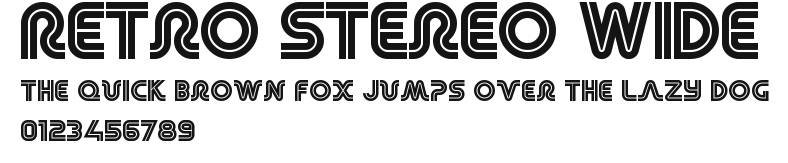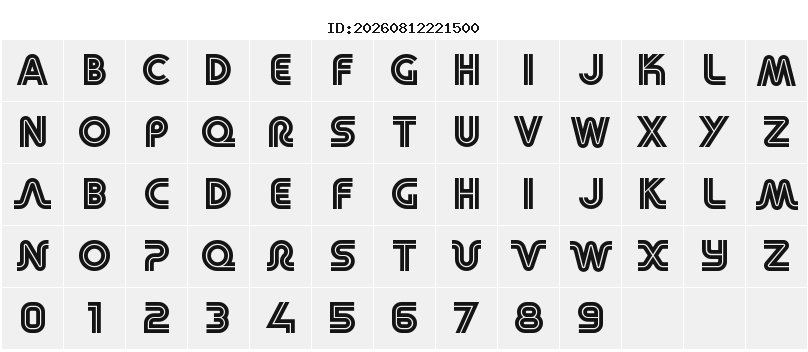
• Font Name: Retro Stereo Wide
• Designer: Thessalos Design, Ltd
About Retro Stereo Wide.ttf
Retro Stereo Wide.ttf is a modern, elegant sans-serif font designed for ultimate readability and visual harmony. Perfect for branding, headlines, web design, and print materials.